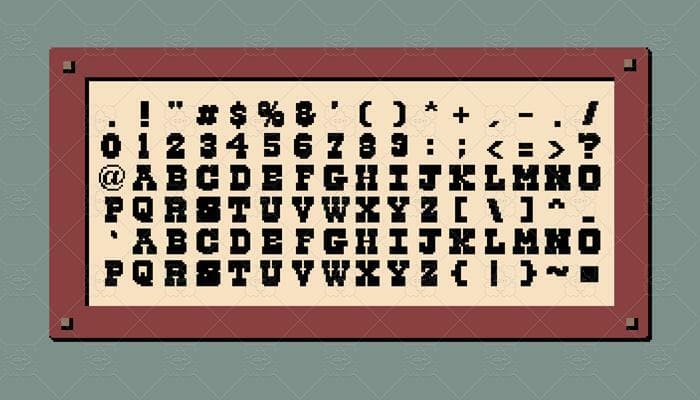
Cowboys Pixel Font is a pixel art/8 bit style based font. It is a font drawn using aseprite and it gives a western retro style aesthetics. You can use it for your game, a graphics, Social media, branding, posters or website. Below are the characters that are available in this set: . ! " # $ % & ( ) * + , - . / 0 1 2 3 4 5 6 7 8 9 : ? @ A B C D E F G H I J K L M N O P Q R S T U V W X Y Z [ \ ] ^ _ ` a b c d e f g h i j k l m n o p q r s t u v w x y z { | } ~ ∎ Available to download in ttf and sprite png format